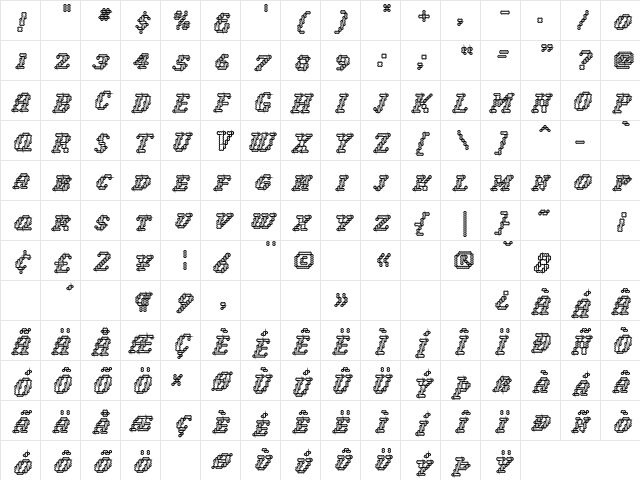
Narly Inline
Style: Inline
Narly Family
Narly Inline
Design Context for Narly
Narly is built around its visual character rather than neutral utility - its distinctive forms are designed to make an impression at display sizes.